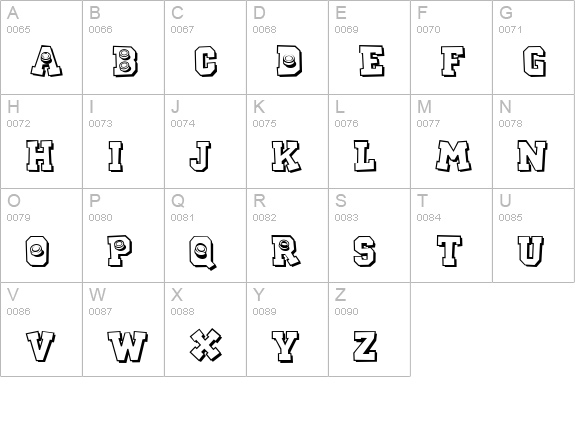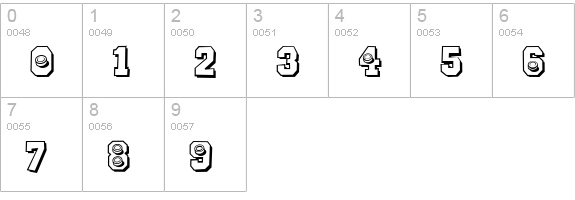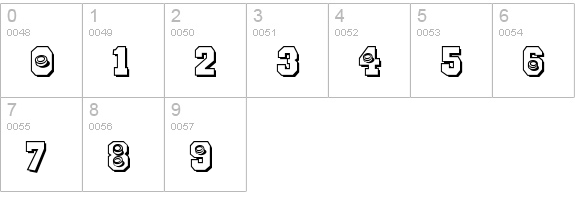
CK Sports Hockey Font Details
Introducing CK Sports Hockey font, a dynamic and bold typeface perfect for all your sports-related designs. This unique font captures the energy and excitement of hockey, making it ideal for team logos, posters, and merchandise. With its strong, athletic aesthetic and sleek lines, CK Sports Hockey font is sure to make your designs stand out. And the best part? CK Sports Hockey font is available for free download at FontsMarket.com! Don't miss out on this amazing opportunity to add a touch of sporty flair to your projects without spending a penny. Get your hands on CK Sports Hockey font today and take your designs to the next level.